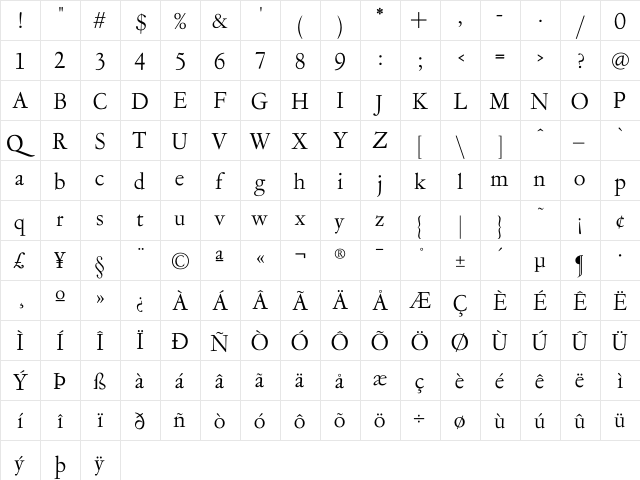
LTC Garamont Text OT Regular
| Designer | Frederic Goudy, Jim Rimmer |
Design Context for LTC Garamont Text OT Typeface
LTC Garamont Text OT offers clean, dependable letterforms without strong stylistic allegiance, making it a practical choice for designers who need flexibility.